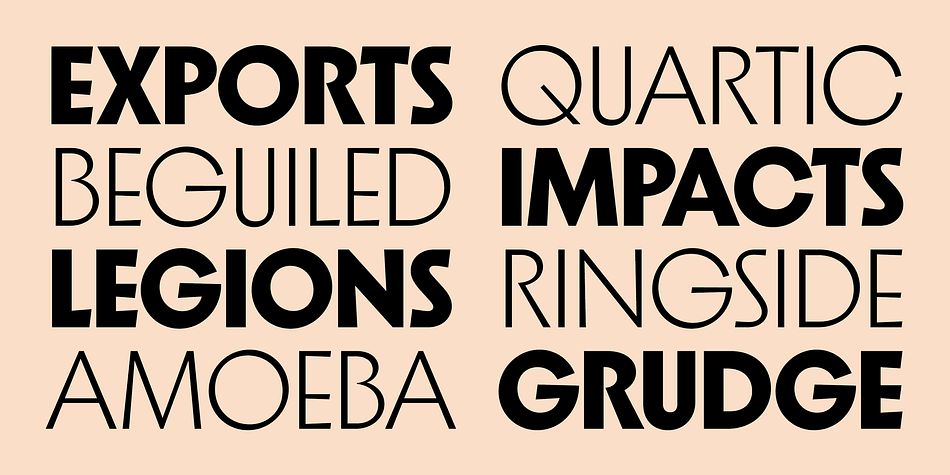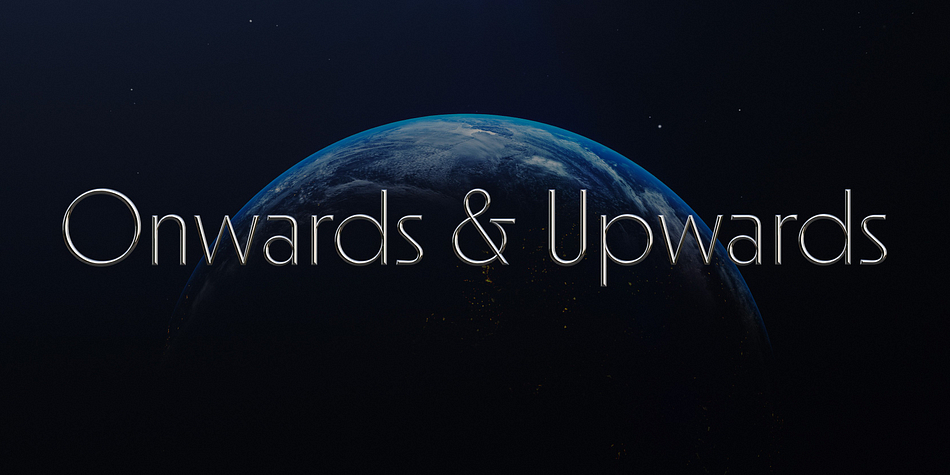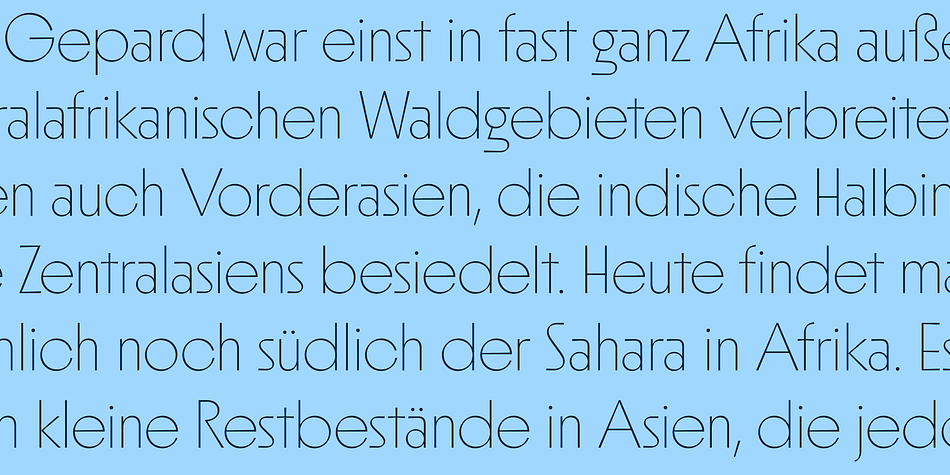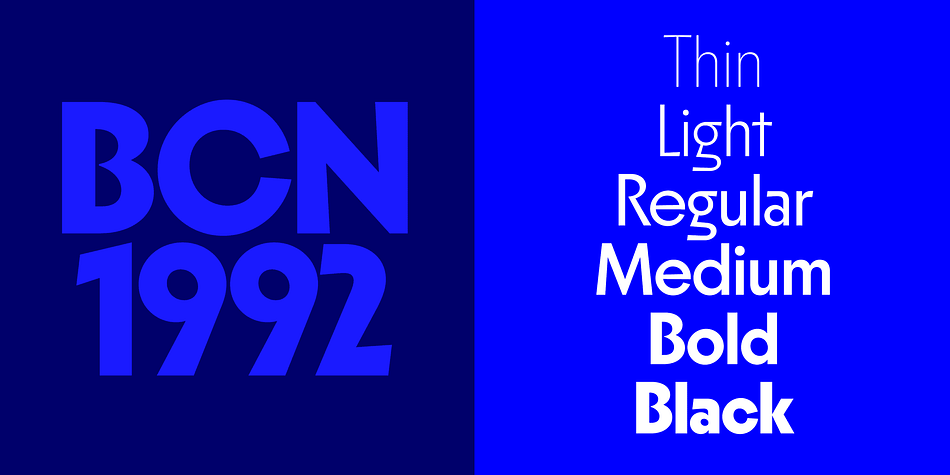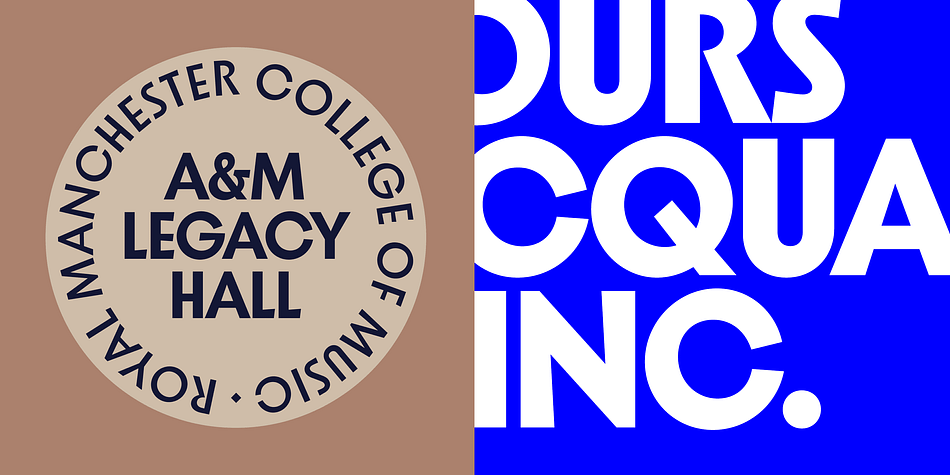
Suecia
Designed by Henric Sjösten, Suecia is a display sans font family. This typeface has seven styles and was published by Haus Type.
The recipe for Suecia is quite simple; a geometric backbone with some calligraphic flair. Best suited for branding, headlines, and shorter texts. Suecia comes in 6 upright weights.
Foundry Haus Type
Designer Henric Bech Sjösten